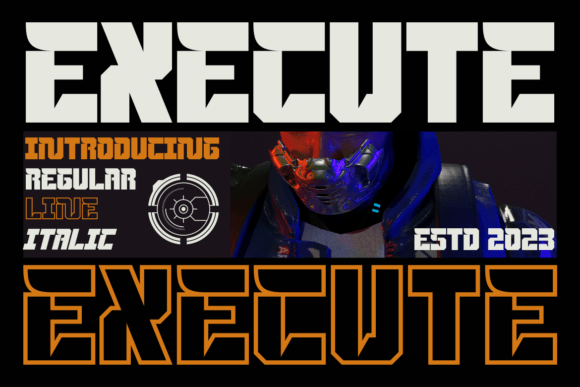
Introducing Execute Font, the masterfully crafted display font that will ignite your creativity and elevate your designs to new heights! With its captivating, robust strokes and eye-catching presence, Execute Font is destined to take center stage in your projects, leaving an unforgettable impact.
Embark on a journey of limitless possibilities with Execute Font. Its versatility knows no bounds, capable of injecting personality into everything from game titles, branding, logos, posters, and social media graphics to eye-catching headlines and packaging designs. Whether you're aiming for a bold and assertive look or a playful and energetic vibe, Execute Font adapts effortlessly to match your creative vision.
Unleash your imagination and watch as Execute Font transforms your words into captivating art. Picture your game titles, logos, and branding adorned with this remarkable font, commanding attention and leaving a lasting impression. Each letterform is meticulously engineered to deliver maximum impact, ensuring your messages shine brighter than ever before.
Marvadesign, the creative force behind Execute Font, has poured their passion and expertise into every curve and contour. Their unwavering dedication to excellence is evident in every detail, resulting in a font that is not just visually stunning but also incredibly versatile.
Don't settle for ordinary fonts that blend into the background. Dare to be different with Execute Font, the font that will make your designs stand out from the crowd. Its unique charm and captivating presence will leave your audience mesmerized, eager to discover the story behind your creations.